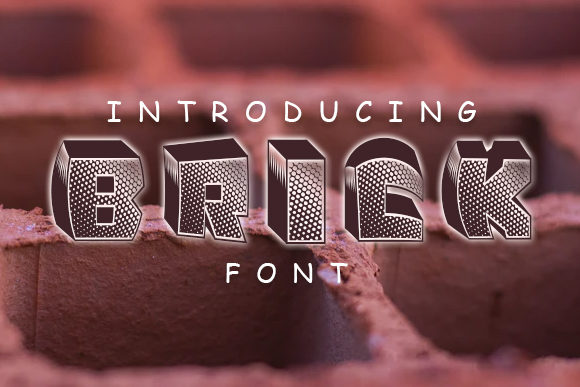
The Ultimate Guide to Brick Font: Unleash Your Creative Potential
I’ll never forget the time I was working on a project for a client who wanted a bold, eye-catching font to make their brand stand out. I scoured the internet, trying font after font, but nothing seemed quite right. That was until I stumbled upon Brick Font. This awesome 3D display font has been a game-changer for my designs ever since. In this article, I’ll share my love for Brick Font, its features, and how to make the most of it in various design platforms.
An Honest Review of Brick Font
So, what makes Brick Font so special? Let’s dive into the good stuff and a few quirks I’ve discovered.
• 💥 Impactful 3D Effect: Brick Font’s 3D brick-like design adds depth and visual interest to any project.
• ✅ Highly Versatile: With its wide range of glyphs and stylistic alternates, you can create unique variations to suit your design needs.
• 🎨 Customizable: Experiment with different colors, textures, and effects to make Brick Font truly yours.
• 👍 Easy to Read: Despite its bold design, Brick Font remains surprisingly legible, even at smaller sizes.
• ⚠️ Limited Use Cases: Due to its bold, attention-grabbing nature, Brick Font might not be the best fit for body text or more formal designs.
• 🤔 Requires Some Experimentation: To get the most out of Brick Font, be prepared to play around with different settings and combinations.
The Story Behind Brick Font
Rumor has it that Brick Font was inspired by the urban landscapes of the 1980s. Its creator, a young designer with a passion for graffiti and street art, wanted to bottle the energy and rebellious spirit of the city in a font. And so, Brick Font was born – a bold, eye-catching typeface that’s perfect for making a statement.
Font Name Brick Font
Author vladimirnikolic
What makes Brick Font so special? Brick Font’s unique 3D brick-like design and highly customizable nature make it stand out from other fonts.
Is Brick Font suitable for body text? While Brick Font is eye-catching, it’s not ideal for body text due to its bold nature. It’s best used for headings or titles.